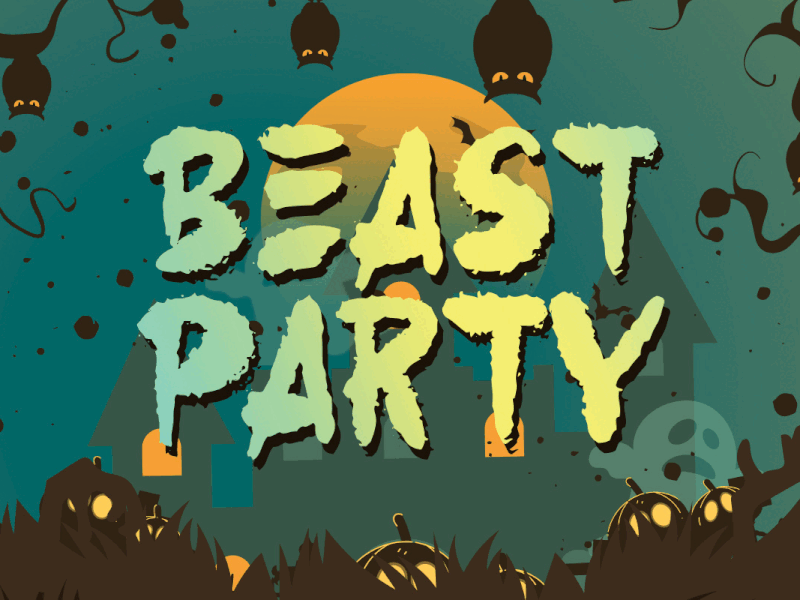
Beast Party - Fun Halloween Font
Beast Party is a font which is can be used in fun spookish concept, and looks great in Halloween theme. This type of font perfectly made to be applied especially in movies or children which is need a standout font, and the other various playful forms such as invitations, labels, logos, magazines, books, greeting / wedding cards, packaging, fashion, make up, stationery, novels, labels or any type of advertising purpose.